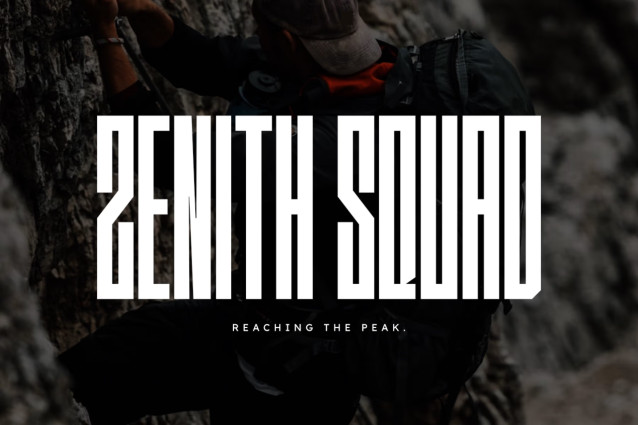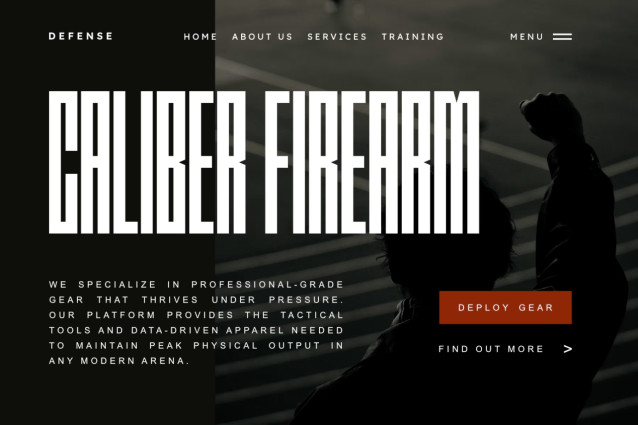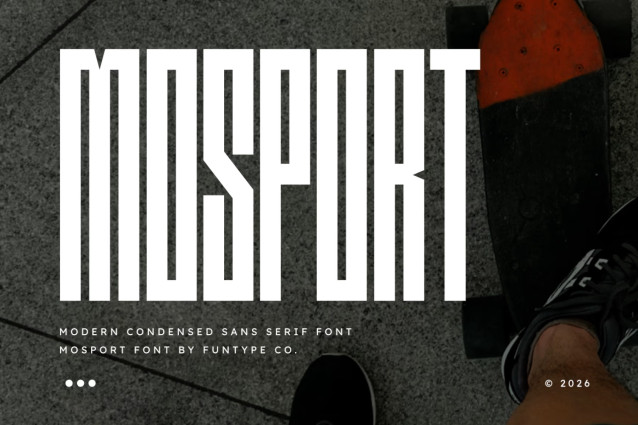
Mosport Font
Mosport is a towering and robust modern condensed sans serif font designed for high-impact and precise professional display typography. Featuring a narrow geometric block structure and solid, powerful lines, this font is perfect for strong headlines, athletic sports branding, automotive packaging, and high-impact digital event posters.
Its confident, tall, and perfectly balanced layout gives your visuals a striking, advanced, and highly sophisticated urban look. Provided in OTF and TTF formats for seamless integration across all creative graphic design and digital merchandise printing platforms.